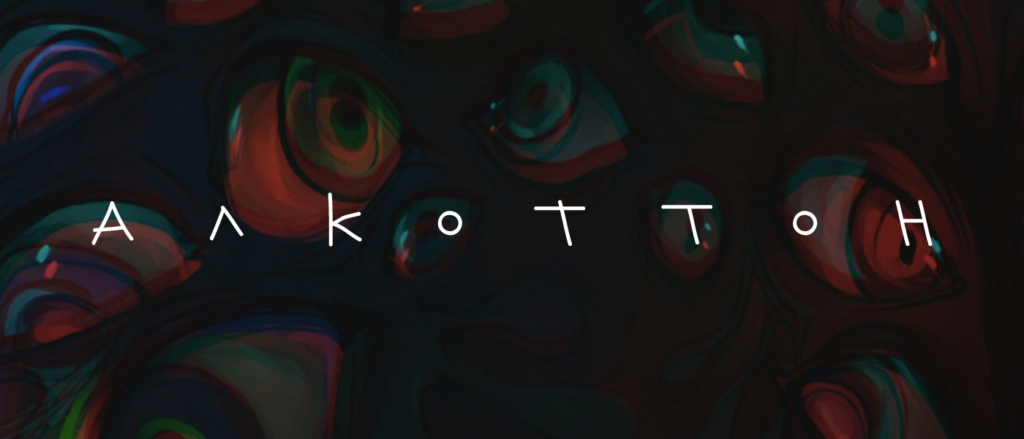
Sasha Khlopok, or Alcotton, an artist and illustrator, used handwritten descriptions for some of her works. They were so unique and unusual that you must have definitely noticed them. One day it seemed so amazing to us that we decided everyone should have an option to create such descriptions for drawings and comics. That’s how we came to creating the Alcotton font.